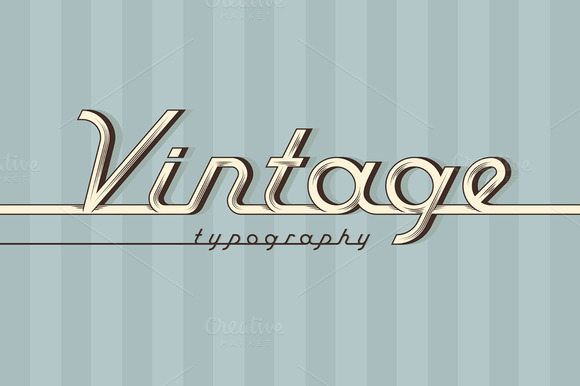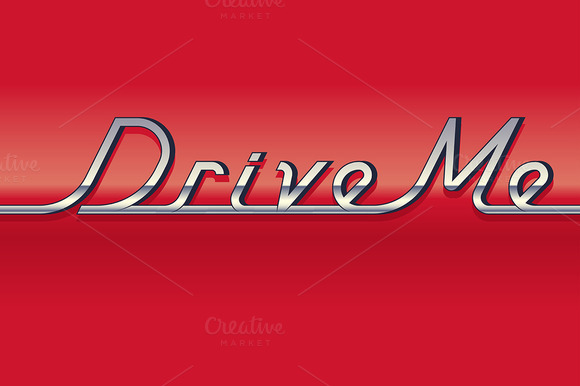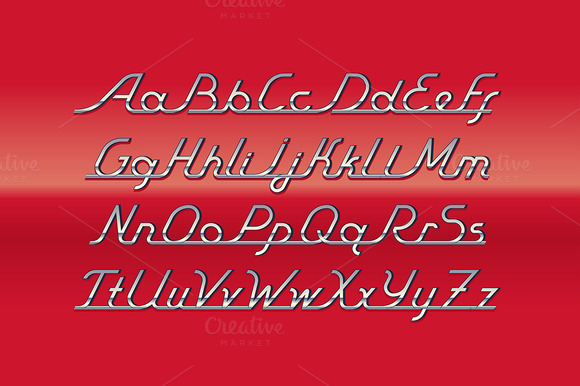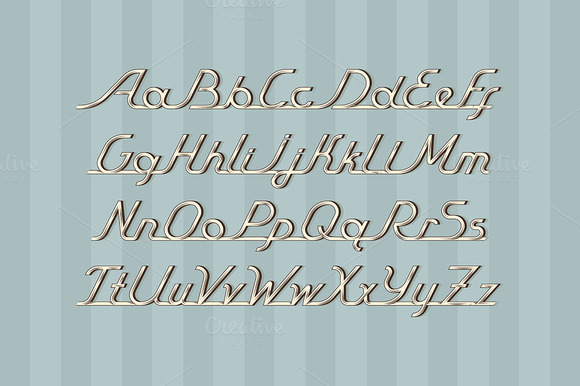
Vintage Auto Font
Hello! Introducing vector font with two different styles: vintage engraving strokes and chrome automobile letters. All you see on screenshots – is what you get in vector files (eps 10). Have fun!